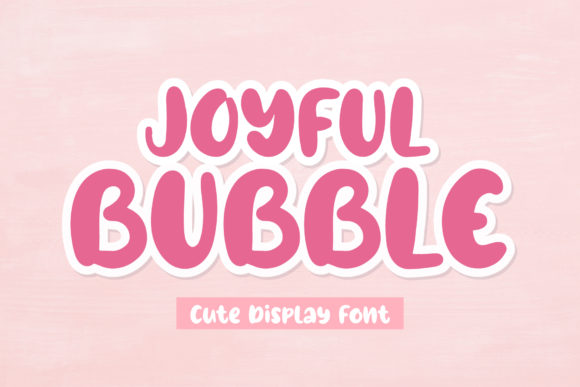
Dive into the realm of charm and playfulness with Joyful Bubble, an enchanting display font ready to ignite your creative spirit. This captivating font, meticulously crafted by the talented AquariiD, exudes a bold yet irresistibly cute charm that will add a touch of delight to your designs.
With its playful curves and a hint of whimsy, Joyful Bubble is the perfect companion for logos that demand attention, branding that seeks to stand out, posters that desire to captivate, and DIY projects that yearn for uniqueness. Unleash your creativity and watch as this font transforms your designs into captivating expressions of joy and cheer.
Step into a world where imagination flourishes and designs come alive. Let Joyful Bubble's playful nature inspire you to create logos that radiate warmth and charm. Its bold presence will ensure your brand identity shines brighter than ever. Elevate your branding game with Joyful Bubble, a font that exudes personality and invites customers to engage with your brand on a deeper level.
Adorn your posters with Joyful Bubble's playful charm and watch as your messages dance off the page. Create posters that capture attention, convey emotions, and leave a lasting impression. From whimsical event flyers to heartwarming invitations, Joyful Bubble will transform your words into visual masterpieces that captivate and inspire.
Embark on a creative adventure with Joyful Bubble, the font that adds a touch of magic to your DIY projects. Whether you're designing personalized greeting cards, creating unique home décor, or crafting handmade gifts, Joyful Bubble will infuse your creations with a sense of joy and individuality. Let your imagination soar as you explore the endless possibilities this extraordinary font offers.
Embrace the delight of Joyful Bubble, a font that will add a touch of whimsy and charm to all your design endeavors. Its bold and playful style is sure to make your logos, branding, posters, and DIY projects stand out from the crowd. Experience the magic of Joyful Bubble today and let your creativity shine!